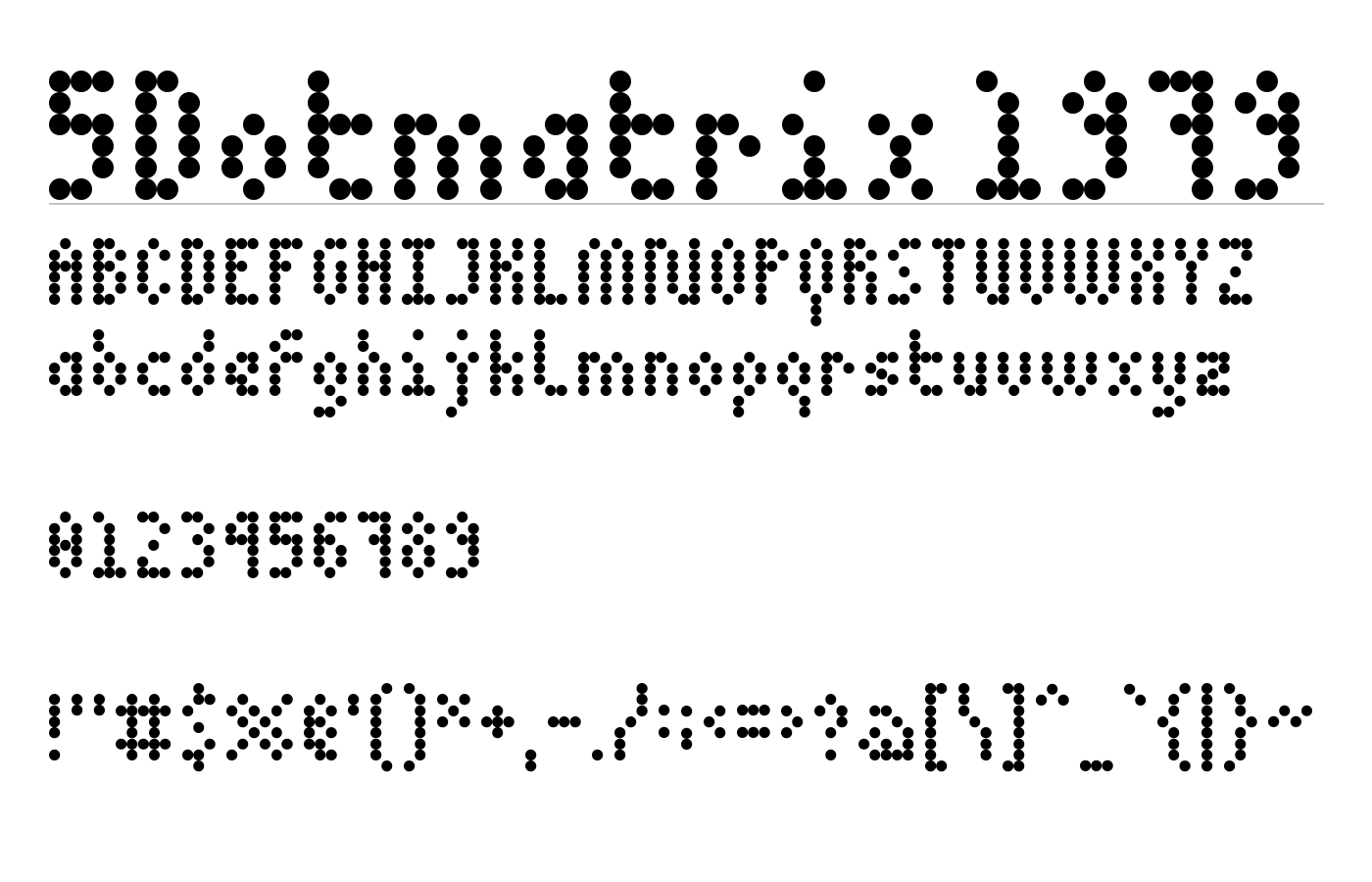
5Dotmatrix 1979 is a distinctive dot matrix style font that mimics retro digital displays with its rounded, uniformly spaced circular dots forming each character. It has a monospaced, geometric feel and a playful, tech-inspired personality that works well for vintage digital themes, retro gaming projects, or tech branding. This font shines in headlines, logos, and display use where its nostalgic, pixelated aesthetic can stand out vividly.
5Dotmatrix 1979 Font
About 5Dotmatrix 1979 Font
| Font family | 5Dotmatrix 1979 Font |
| Designer | Noah - 11 year old typomaniac |